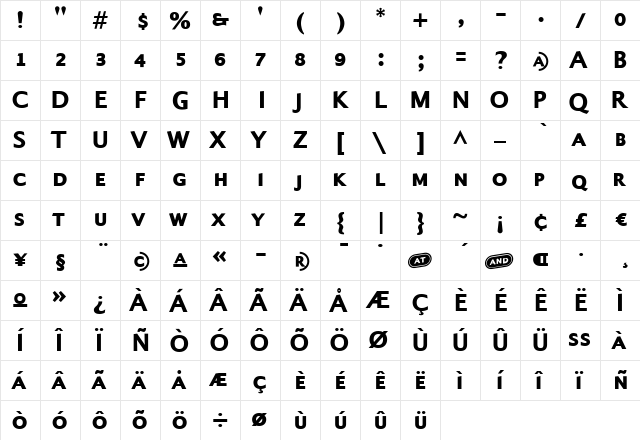
Alphabet4 Bold Font Preview
Alphabet4 Bold
Alphabet4 Bold Font Details
Design Context for Alphabet4 Typeface
Alphabet4 takes a measured approach to typography — its balanced proportions and neutral character make it a reliable workhorse for both digital and print work. The heavy weight commands attention and anchors typographic hierarchies.